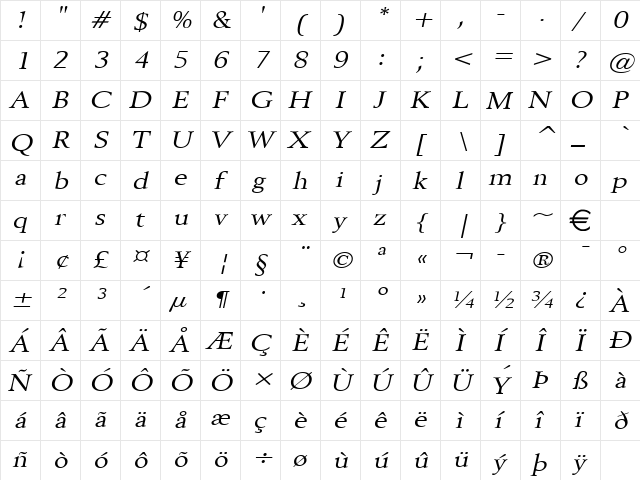
Revive8Wide Italic
Design Context for Revive8Wide Typeface
Revive8Wide takes a measured approach to typography — its balanced proportions and neutral character make it a reliable workhorse for both digital and print work. Its italic angle brings a sense of urgency and motion to the letterforms.
Pro Tip: Try Revive8Wide for annotation and caption copy alongside an upright companion — the contrast in angle creates a dynamic but ordered typographic system.